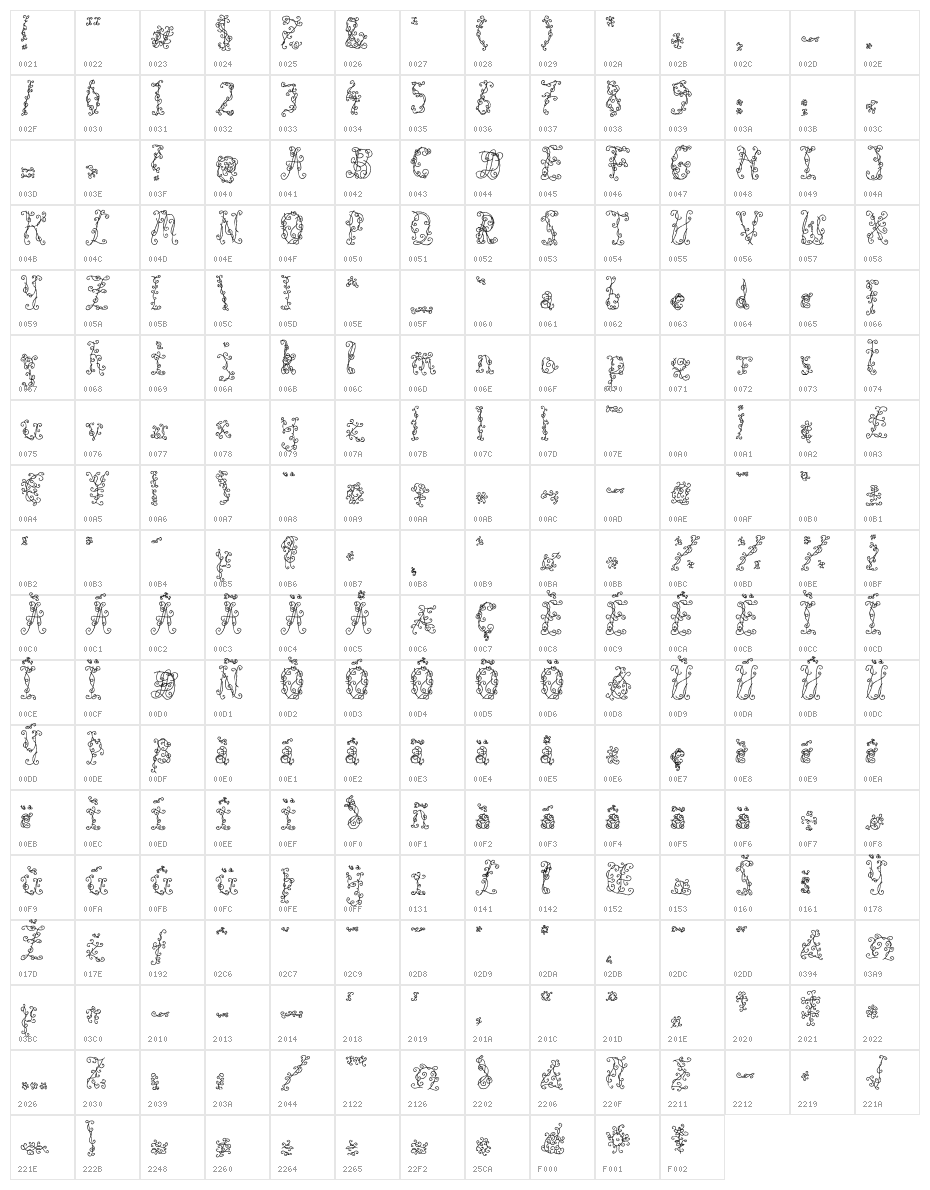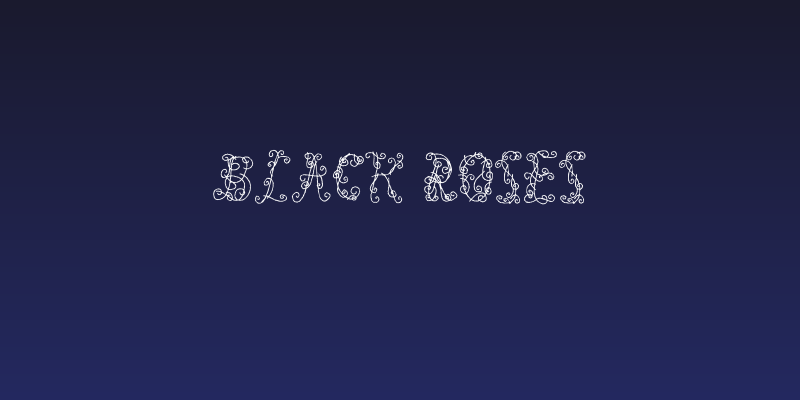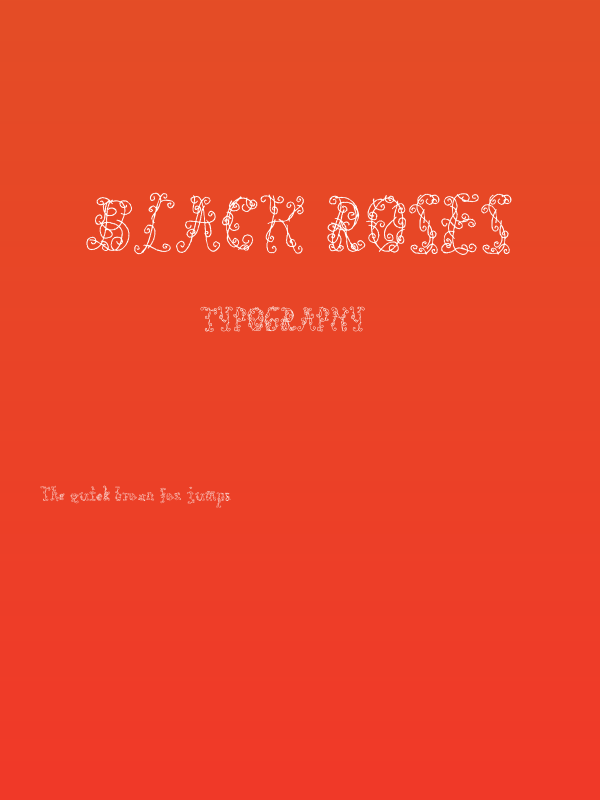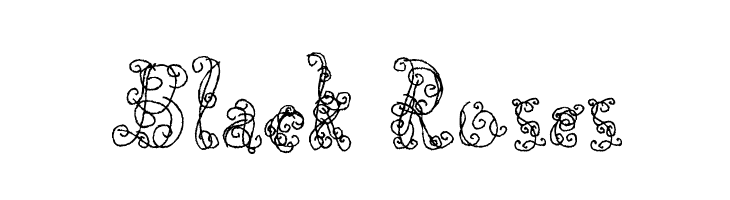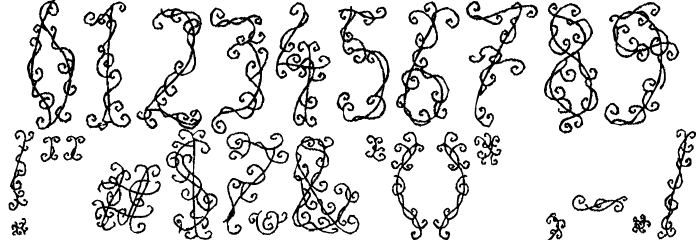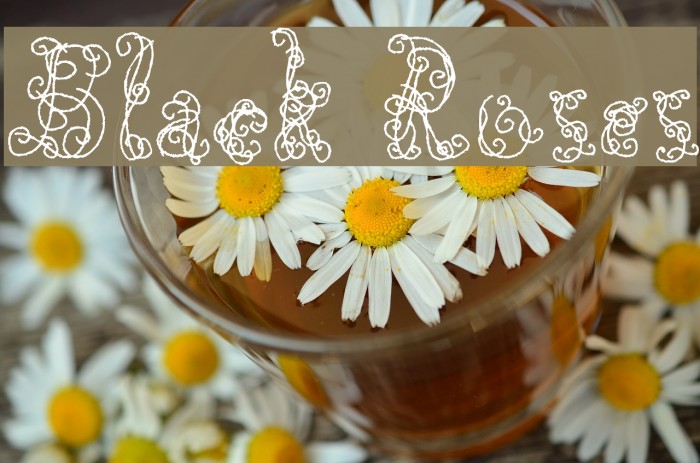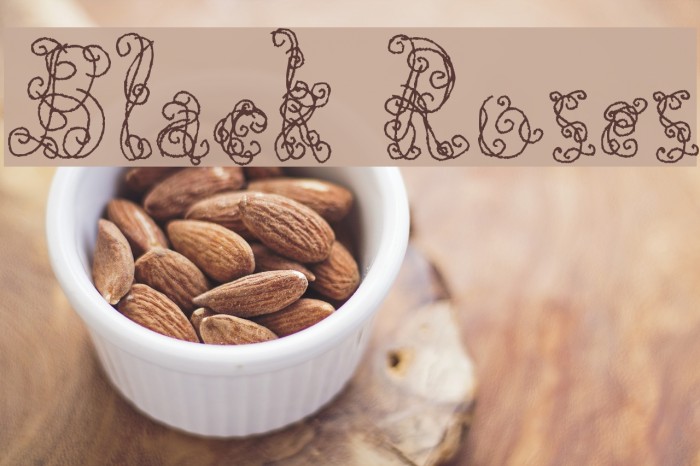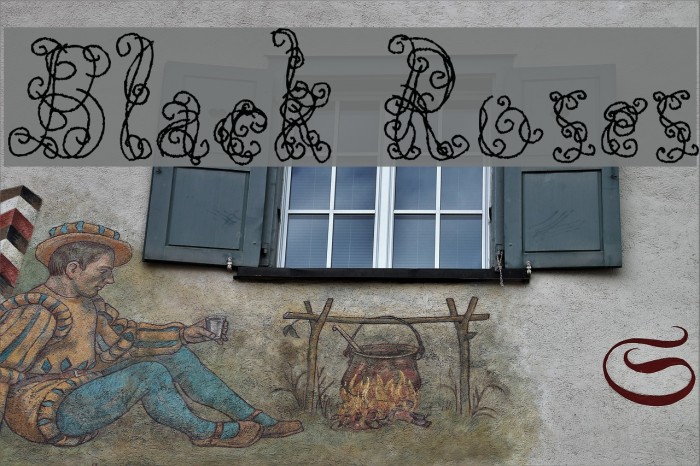
Black Roses Font
Black Roses Description
This decorative font is characterized by its intricate, swirling designs that mimic the appearance of vines or floral patterns. Each letter and number is adorned with elaborate curls and loops, giving it a whimsical and ornate appearance. The font's unique style is reminiscent of hand-drawn calligraphy, with a playful yet elegant touch. The complexity of the design makes it stand out, ideal for creating eye-catching headlines or artistic projects. The font maintains a consistent level of detail across all characters, ensuring a cohesive look when used in text. Its decorative nature makes it less suitable for body text but perfect for creative and expressive design work.
| Use Case | Headlines, Logos, Artistic designs |
| Proposed Projects | Ideal for wedding invitations, artistic posters, branding for luxury products, or any project requiring a touch of elegance and creativity. |